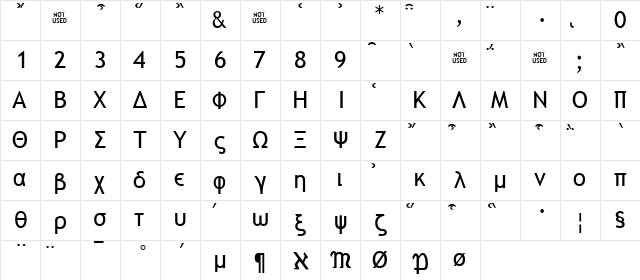
Galilee Regular
| Designer | Rodney J. Decker |
Design Context for Galilee Typeface
Galilee is a composed and adaptable typeface that performs quietly and consistently across a wide range of design contexts.